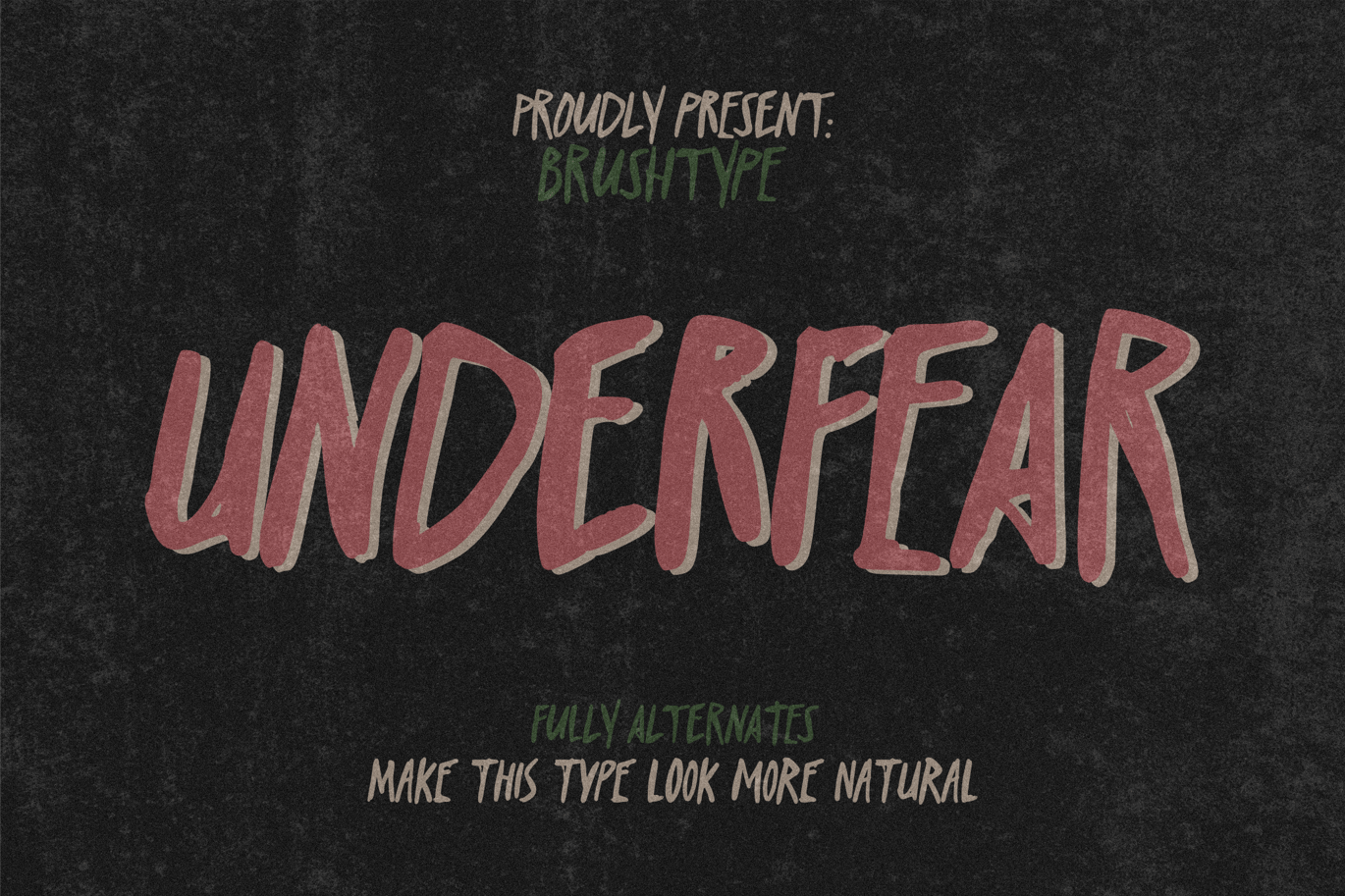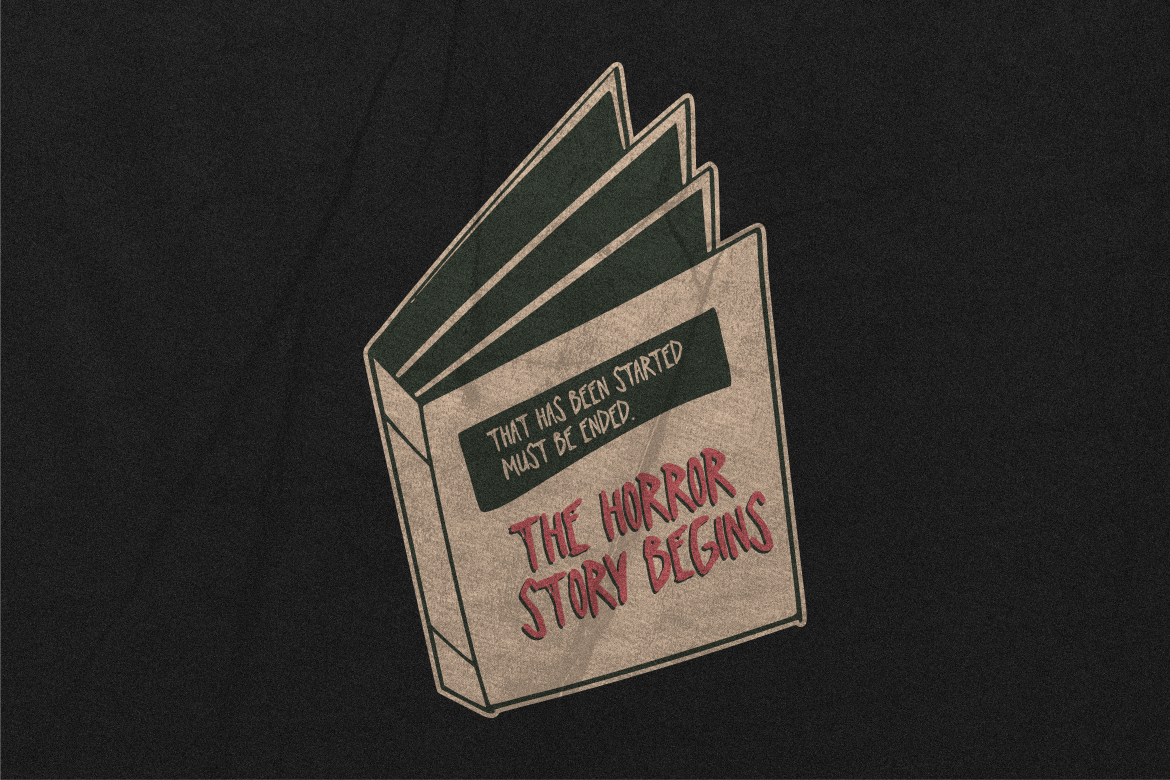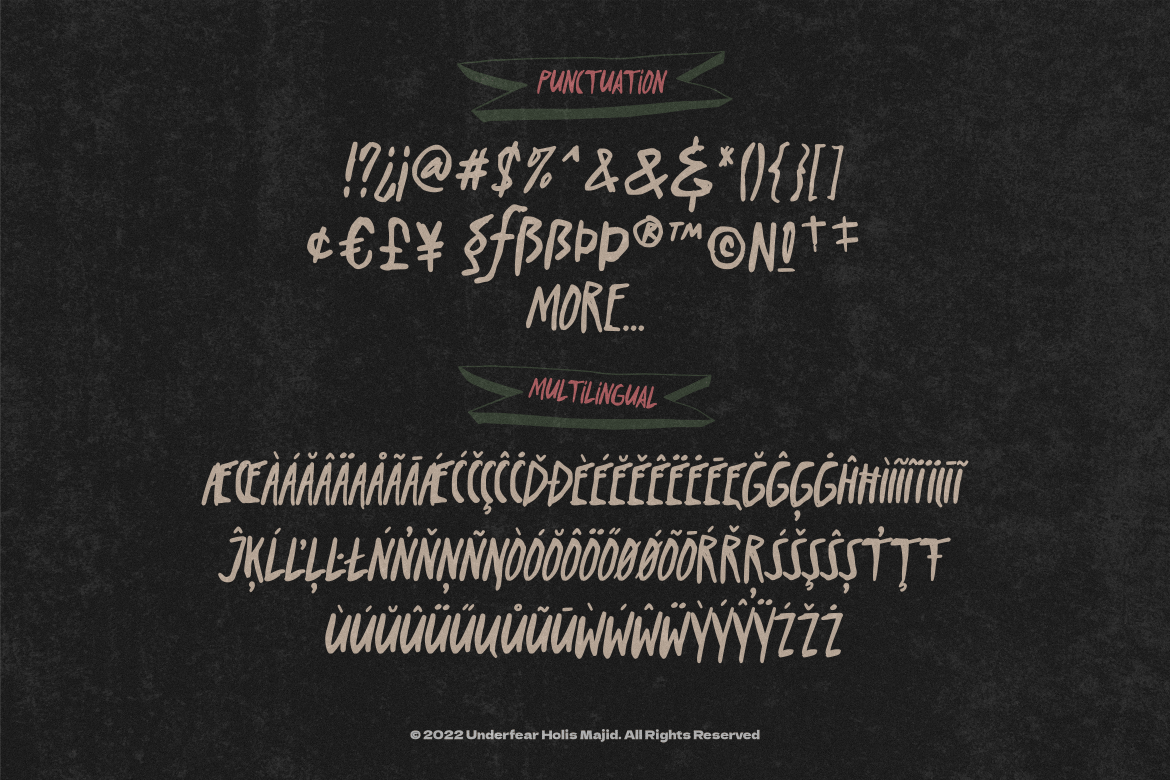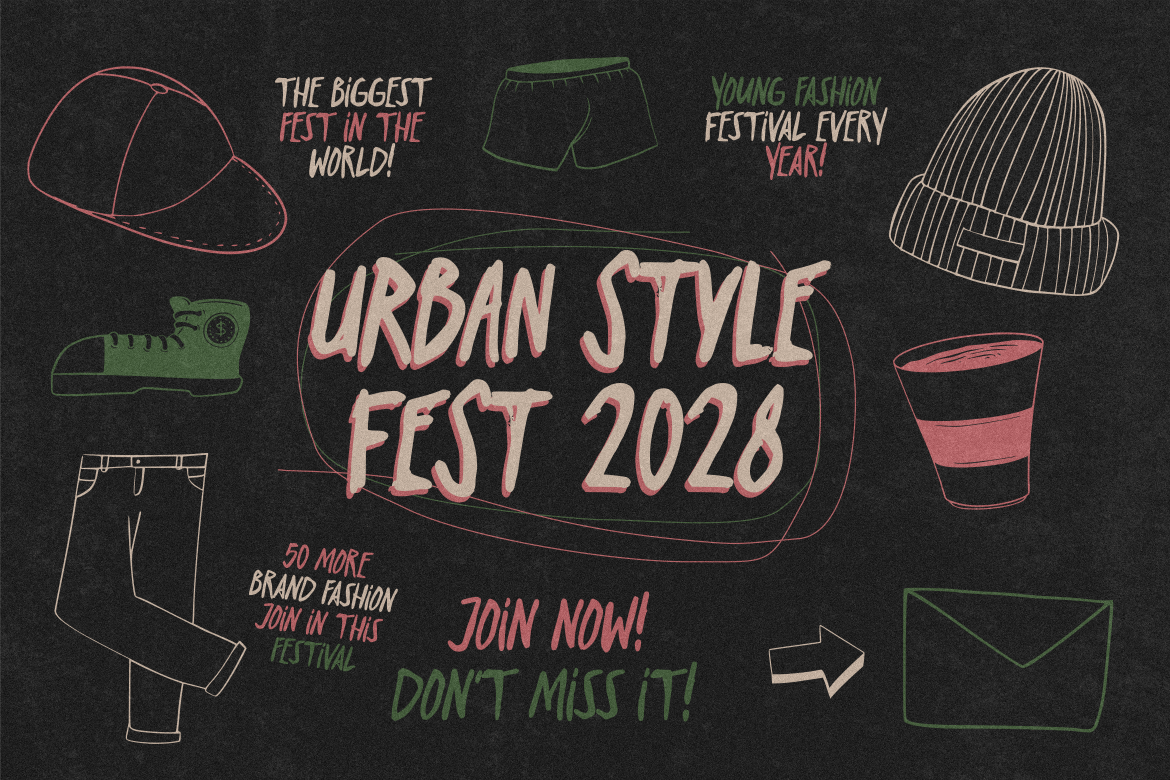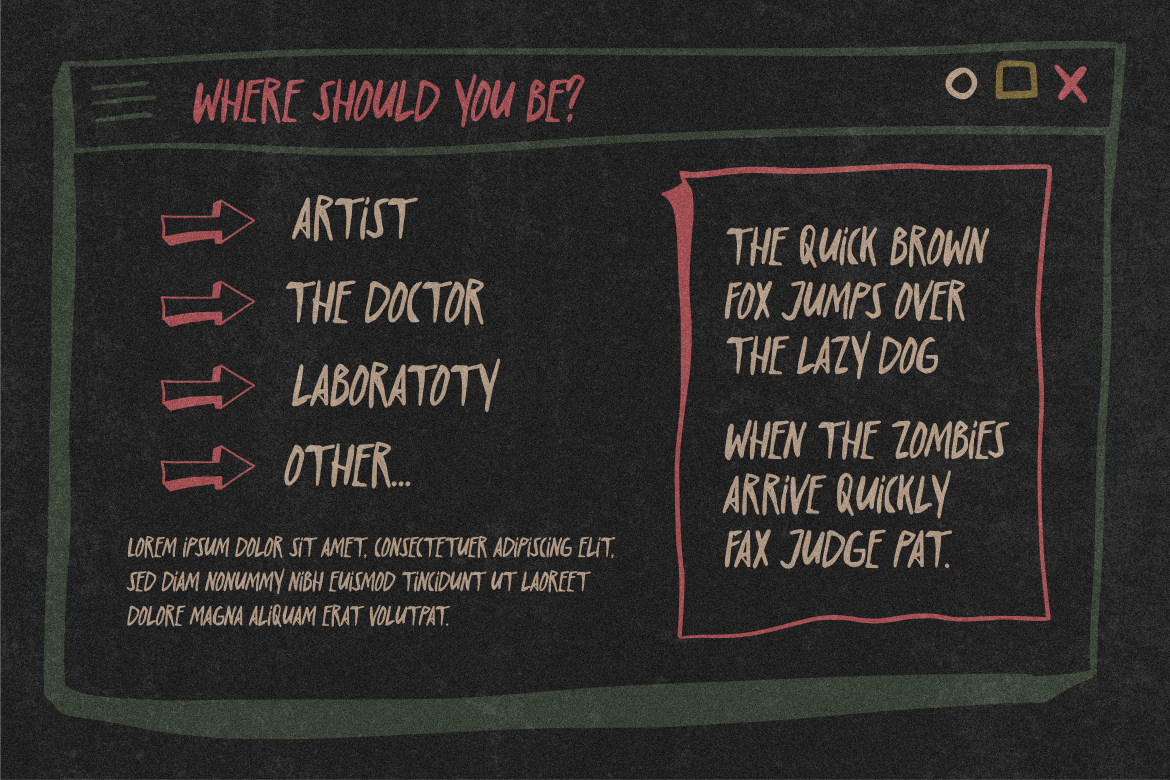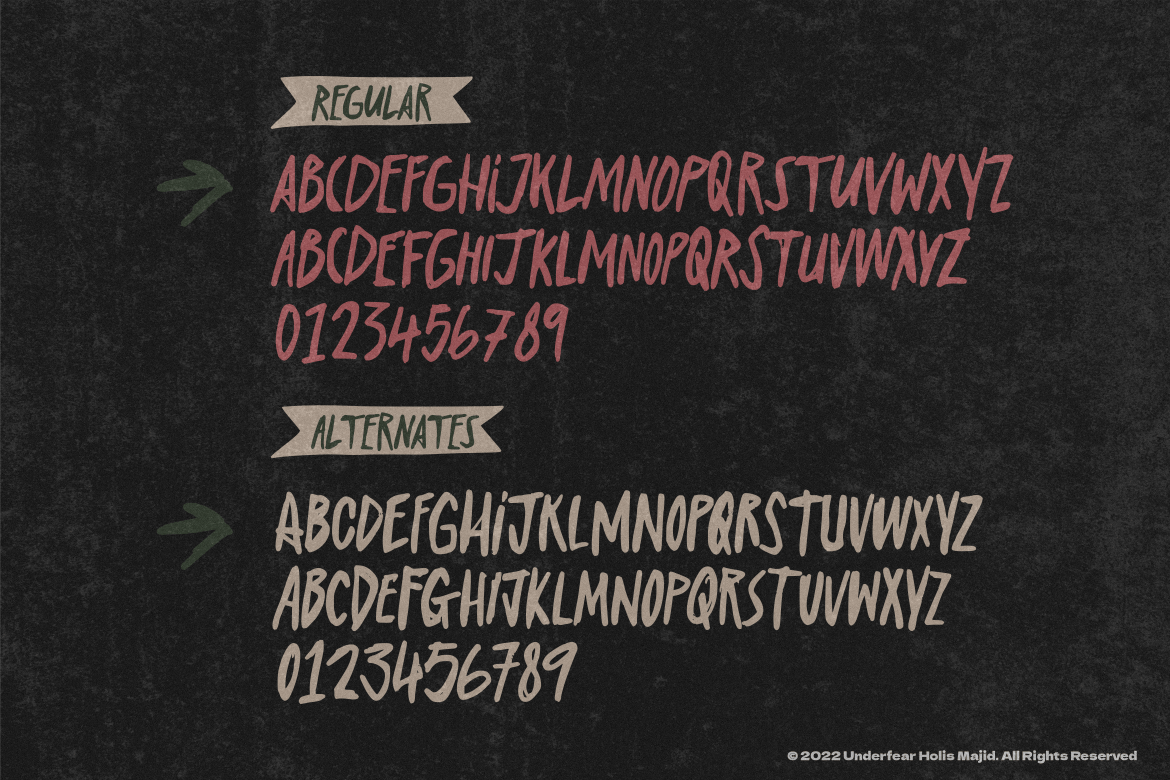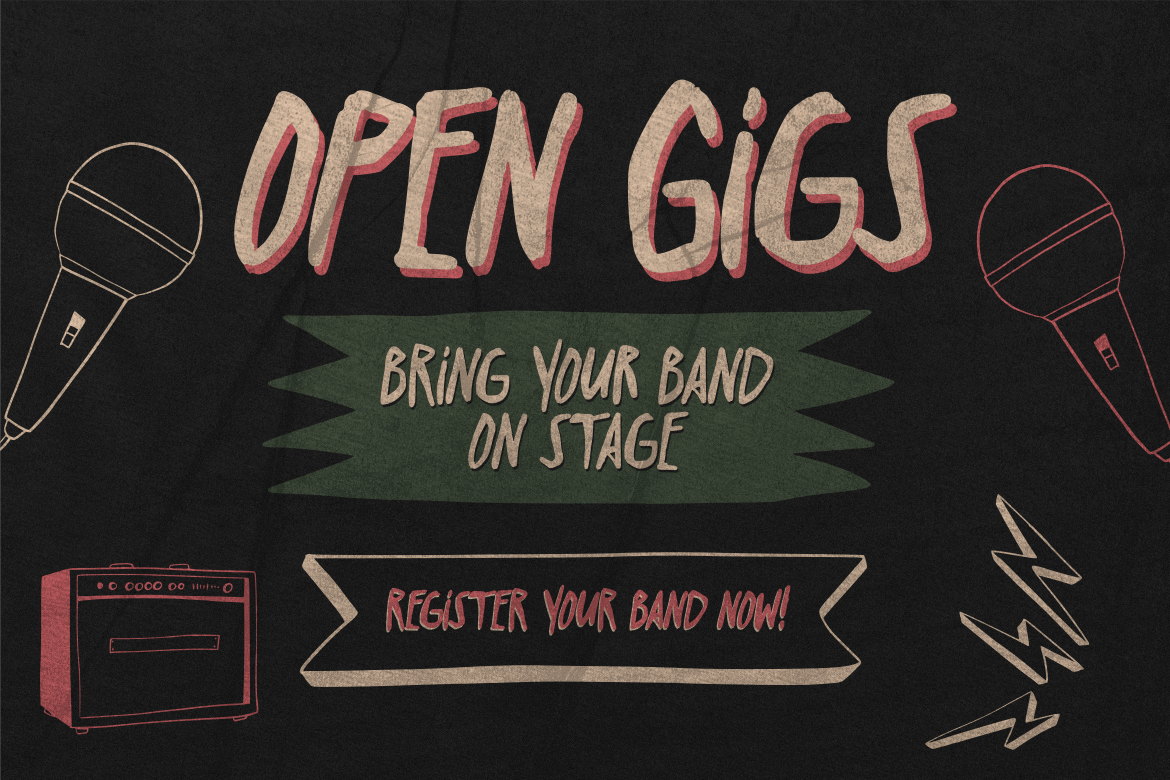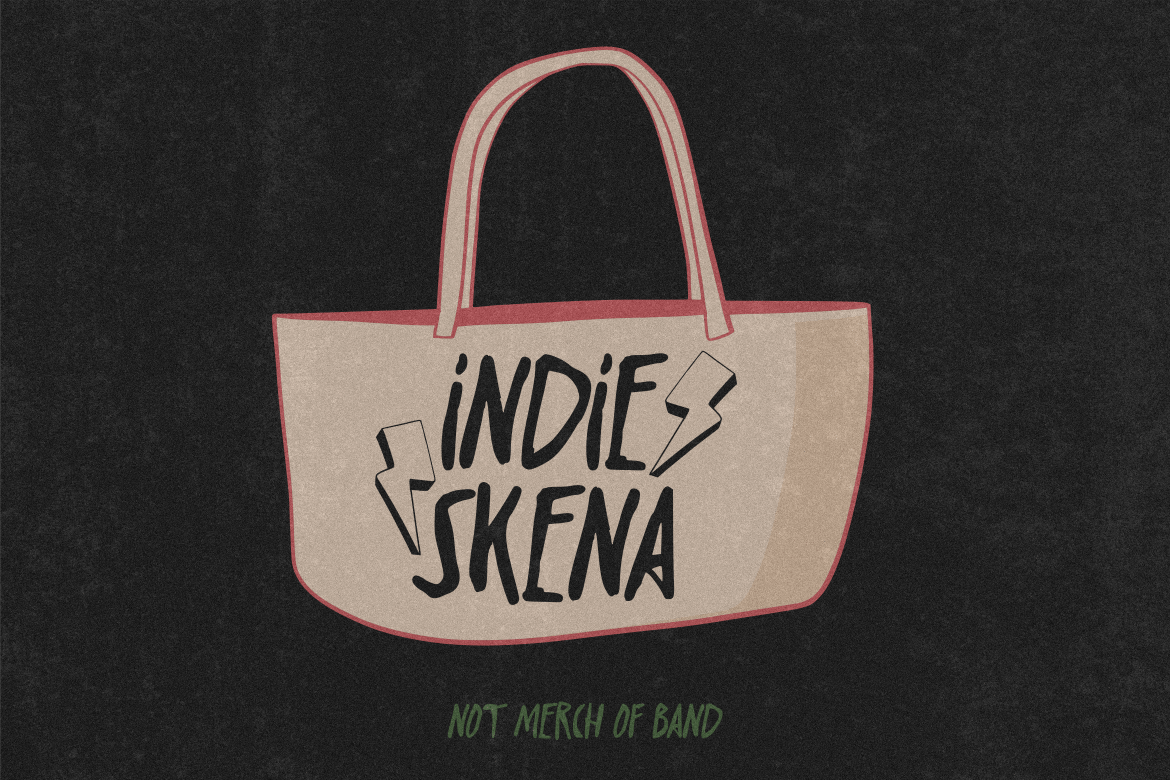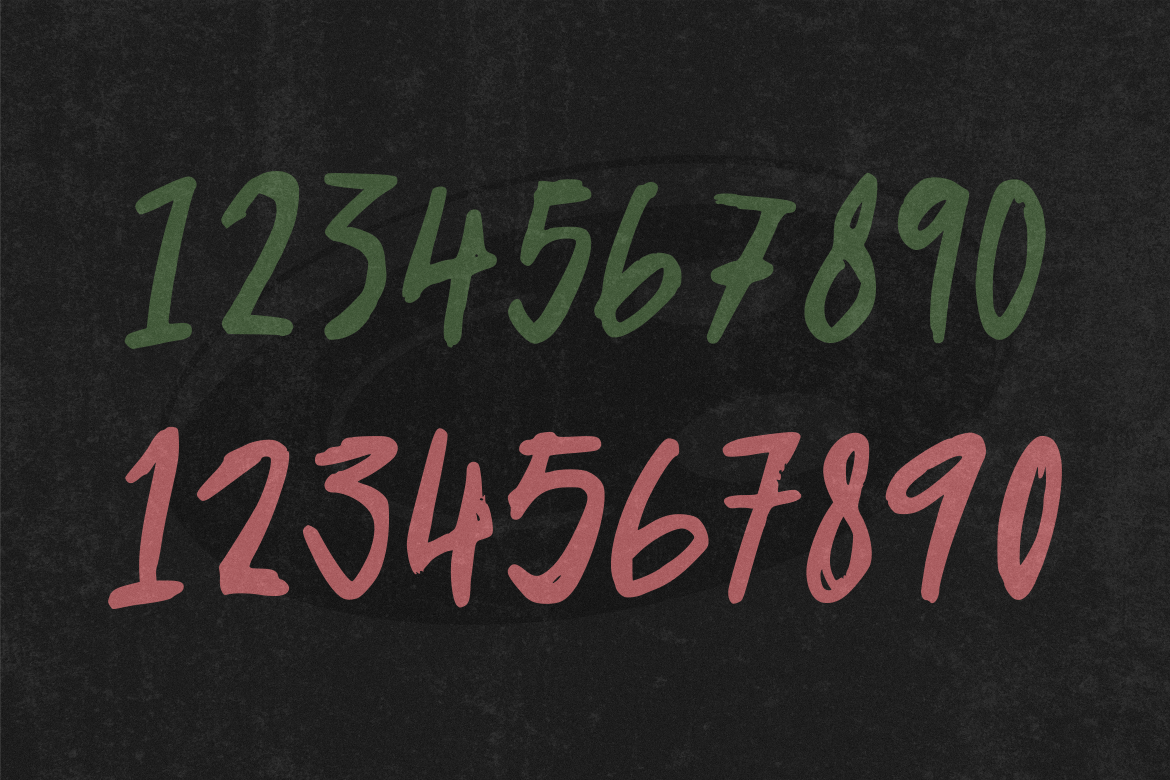
Underfear Brush Font
Underfear is a masculine brush font with an uppercase character equipped with alternates as options, so when using this font you will get a natural impression for your design. The font is inspired by posters of metal/rock/punk bands and music shows.